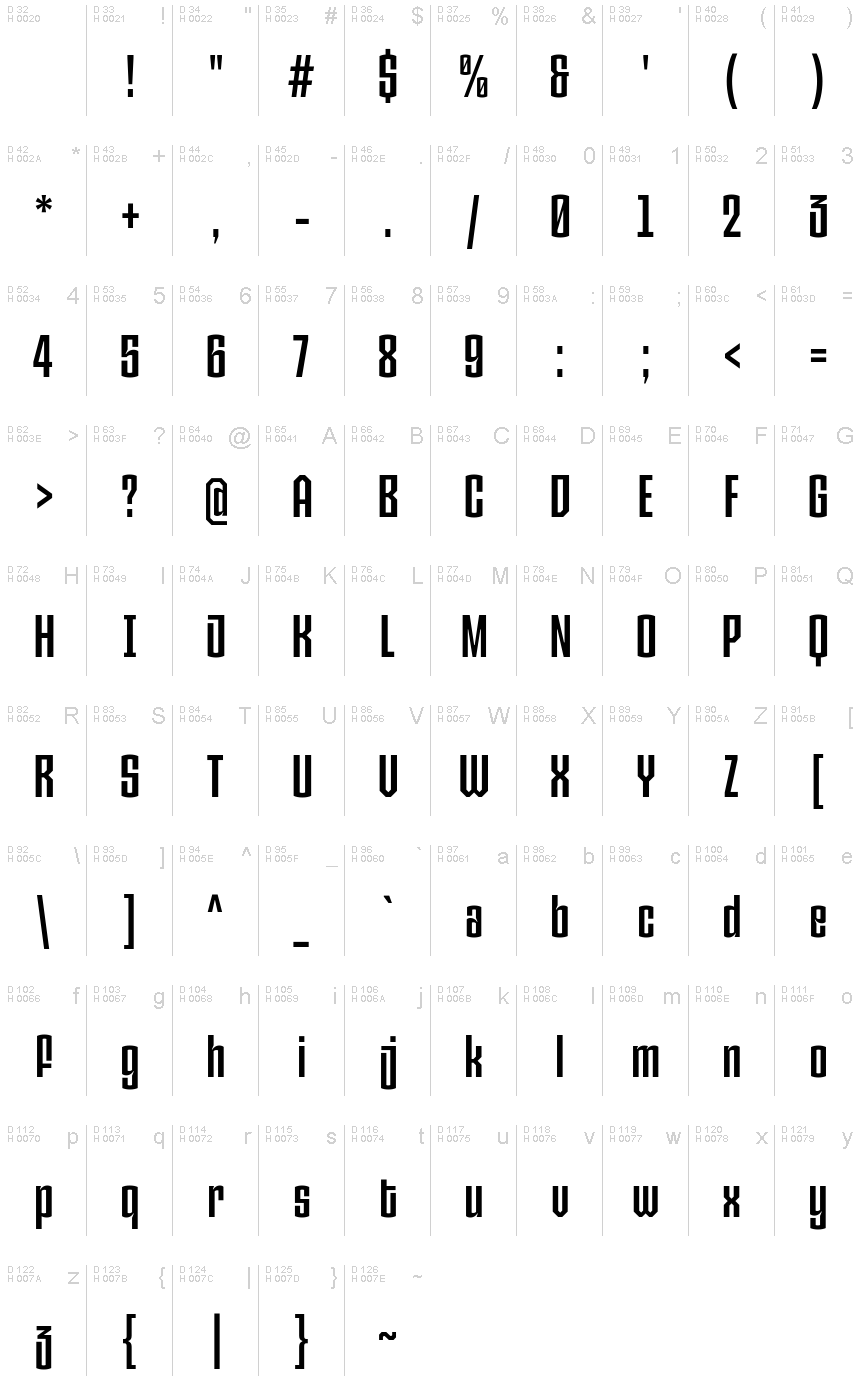
TT Carvist Trial DemiBold
TT Carvist DemiBold font, from the TT Carvist family by TypeType Foundry, is a captivating sans serif condensed font. Its bold and striking appearance commands attention, making it ideal for impactful headlines and eye-catching designs. With its sleek, compressed form, TT Carvist DemiBold effortlessly balances modern elegance and bold simplicity.